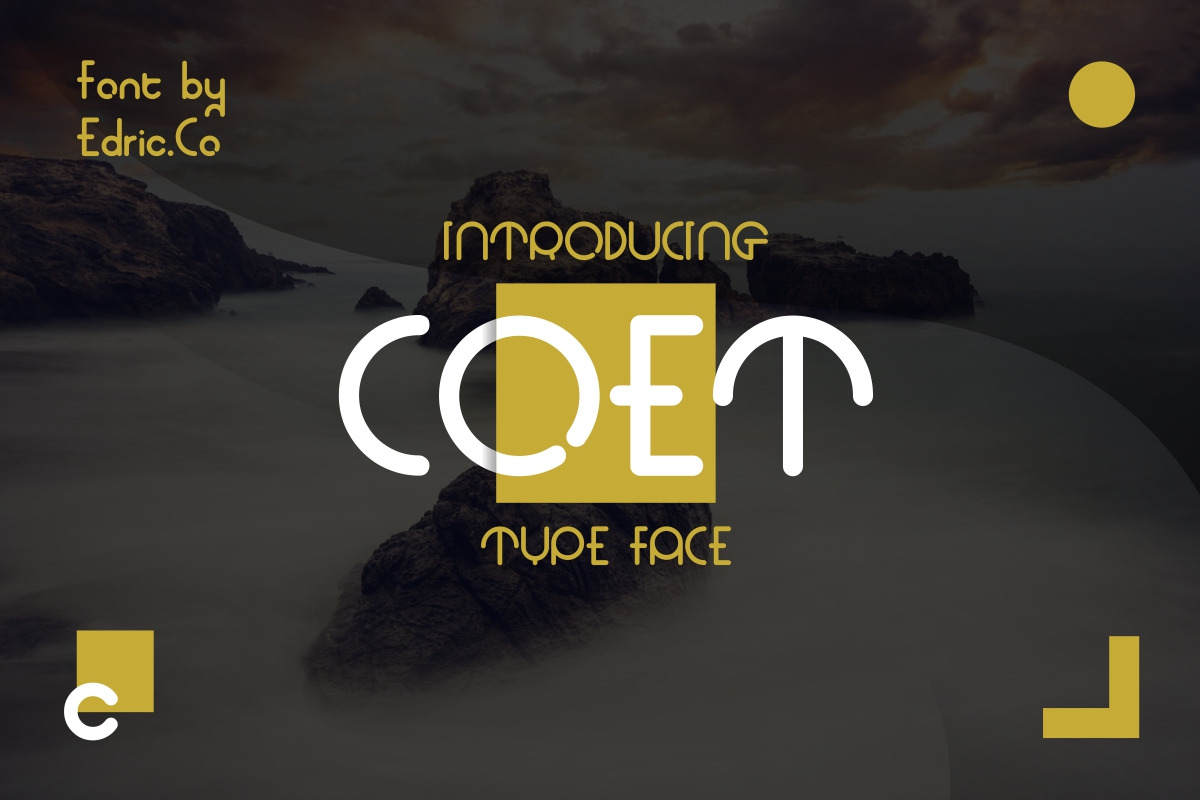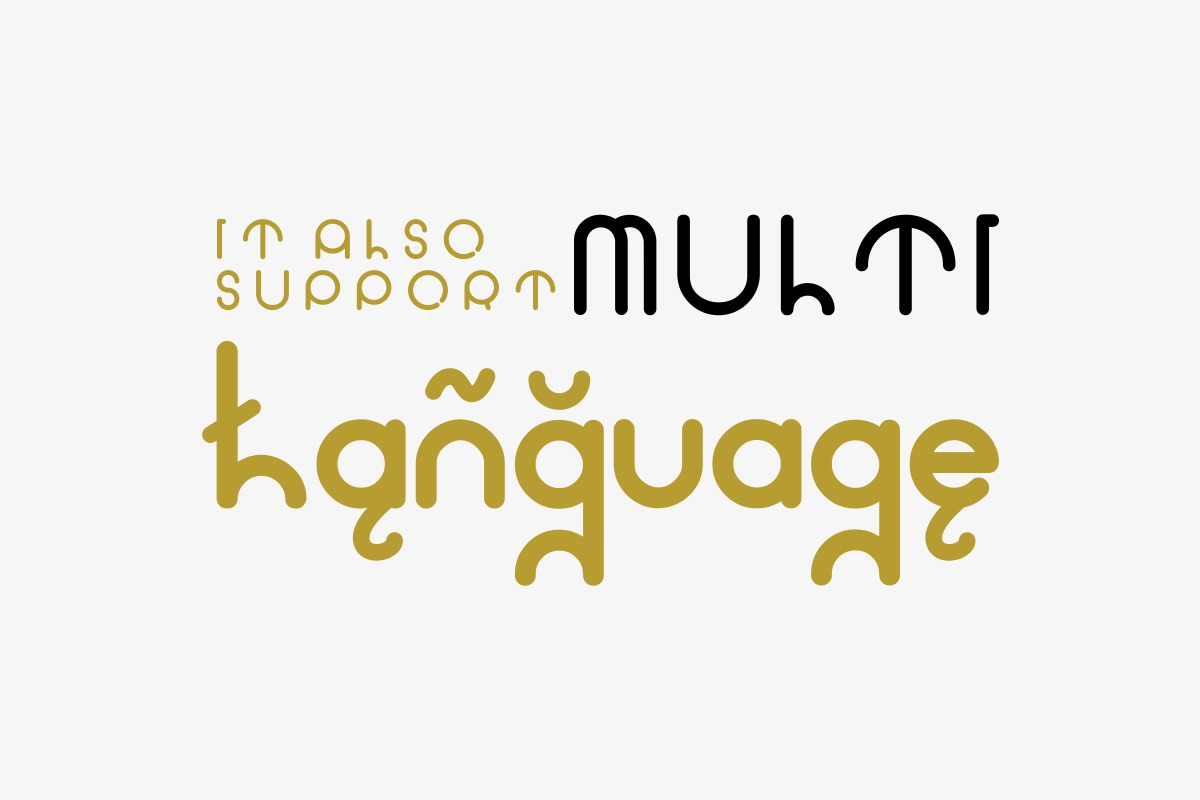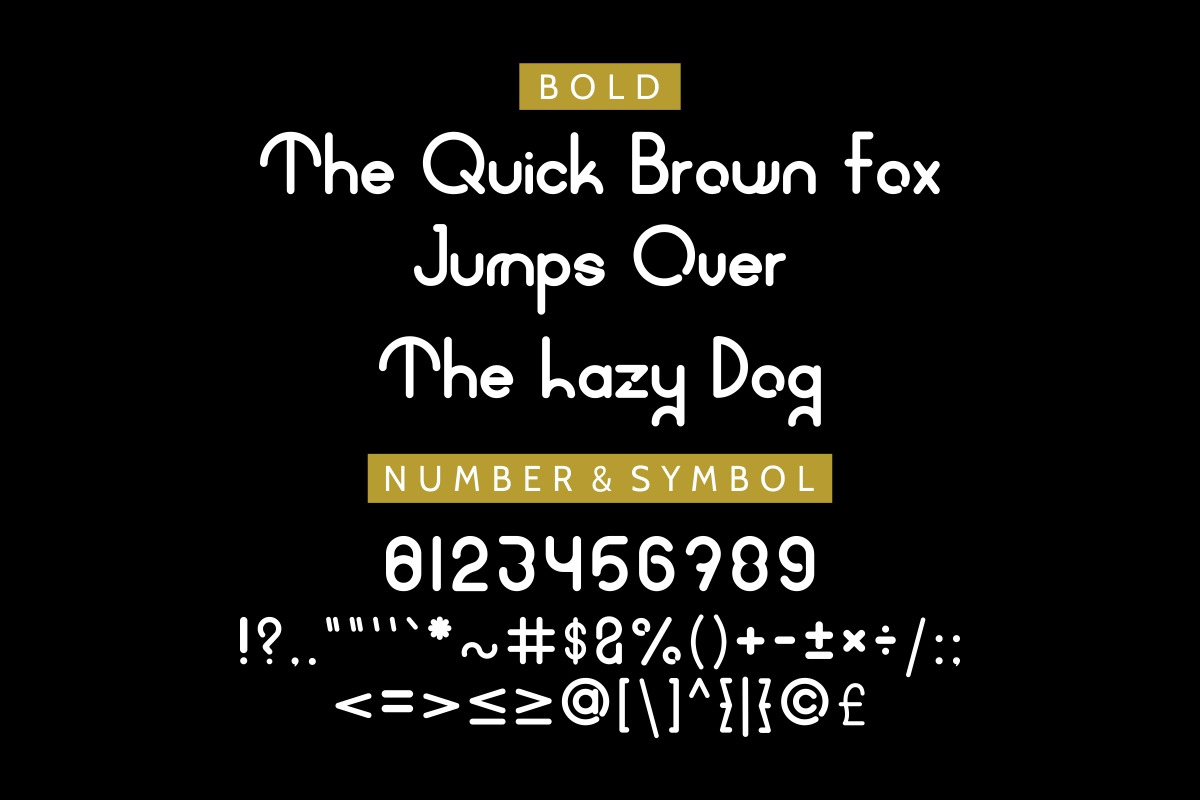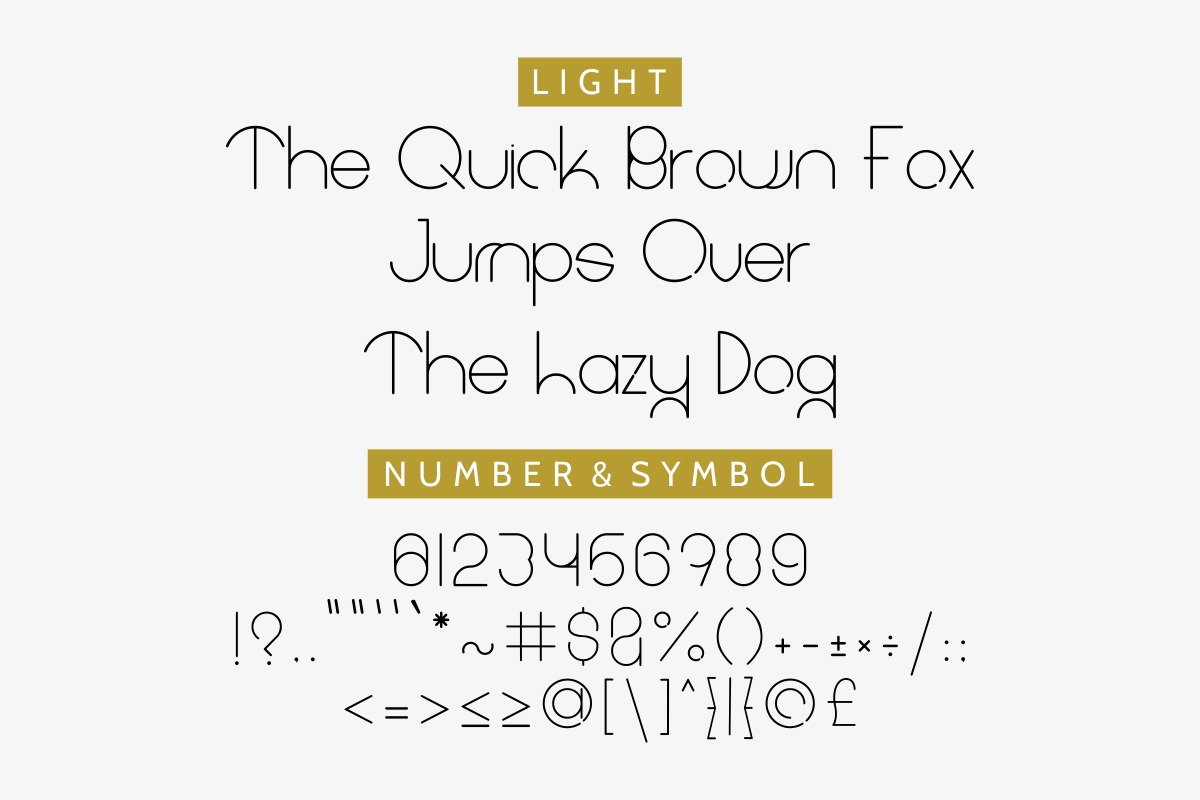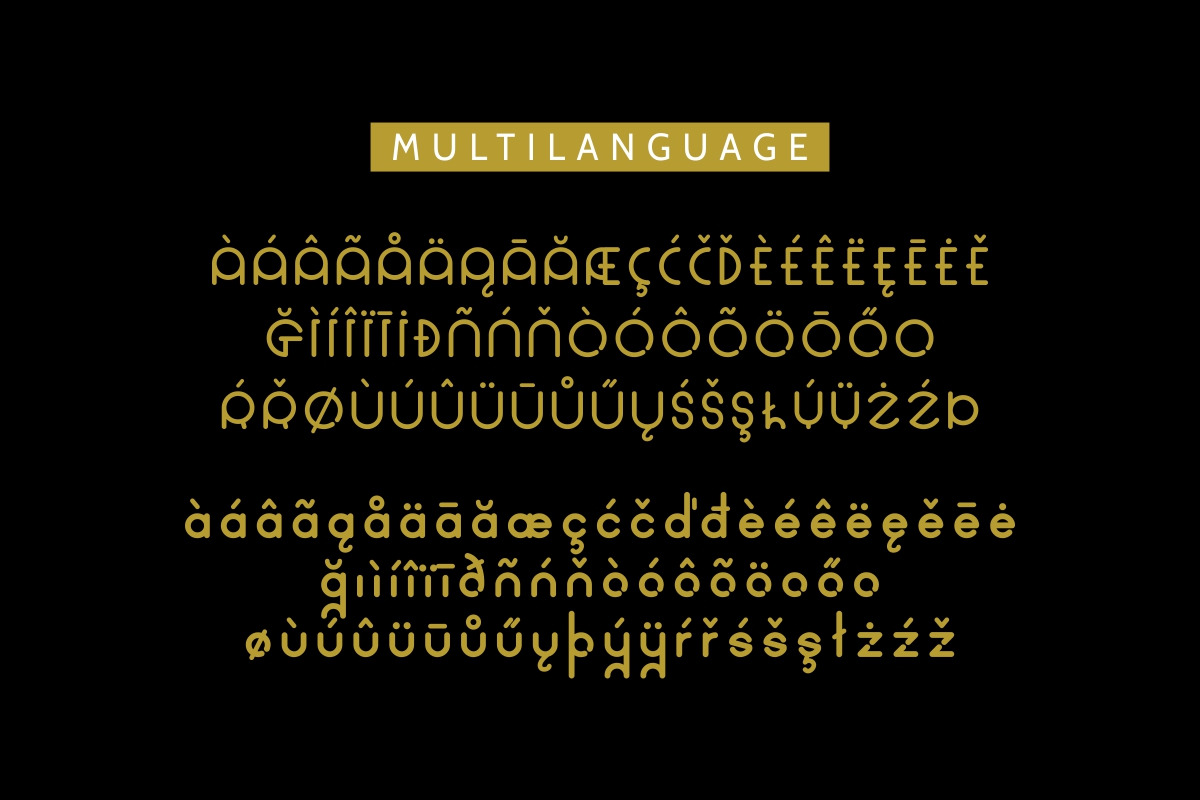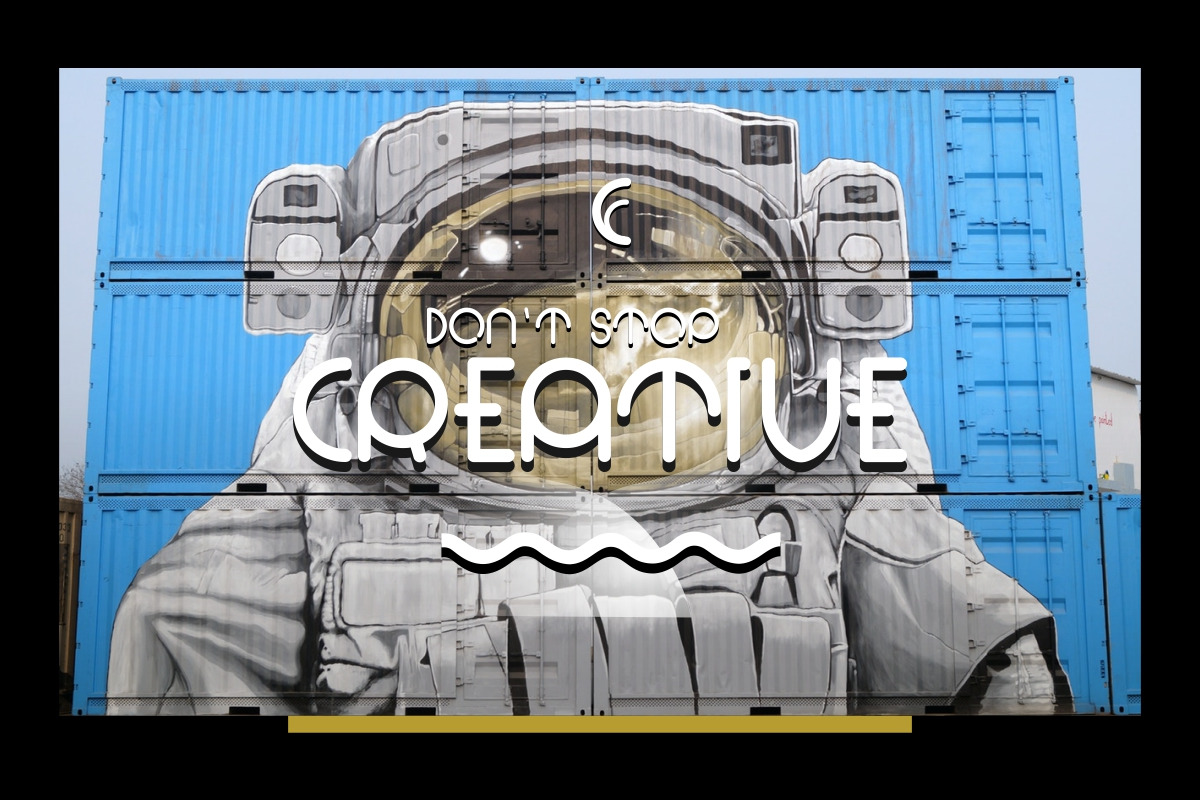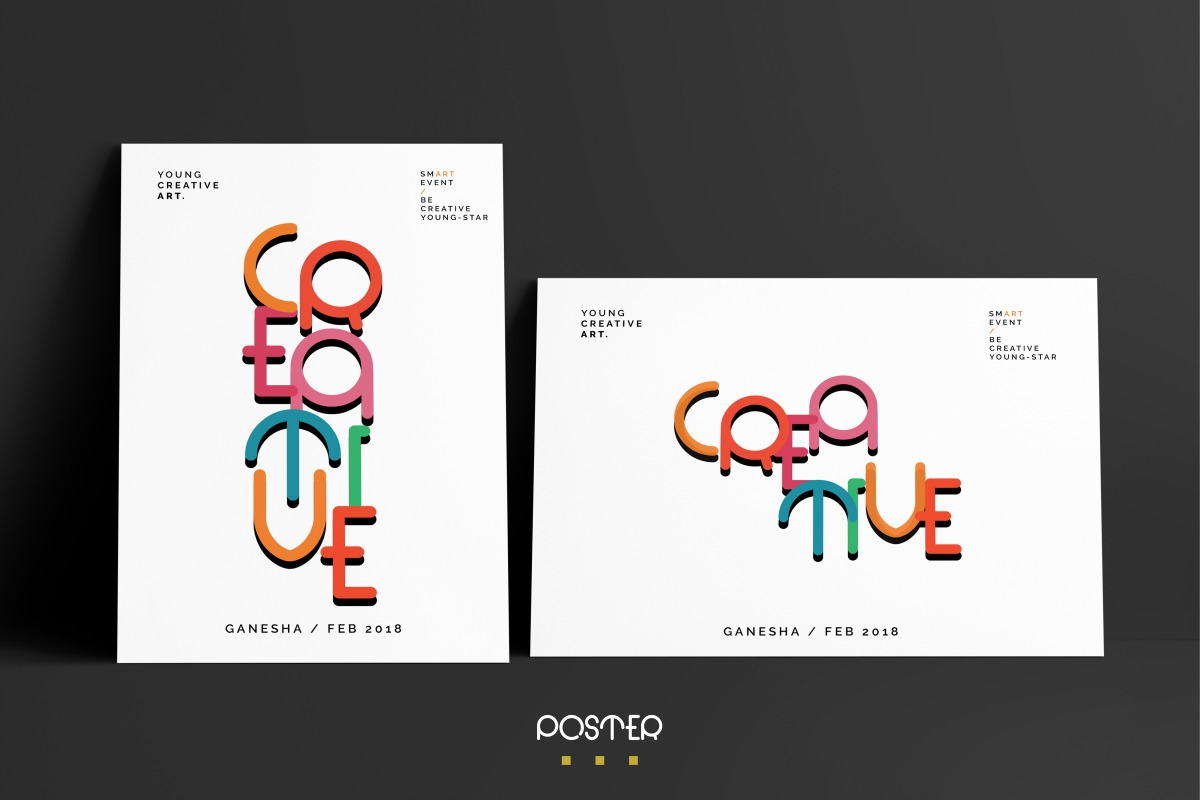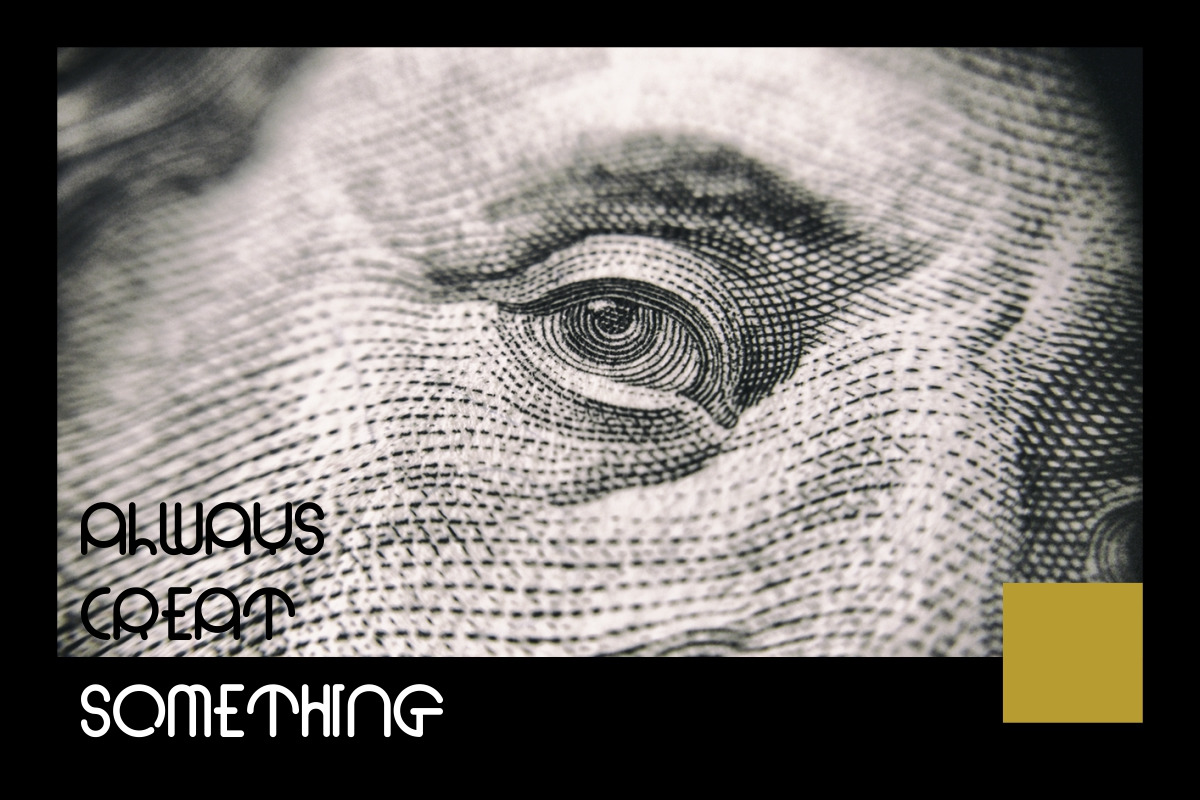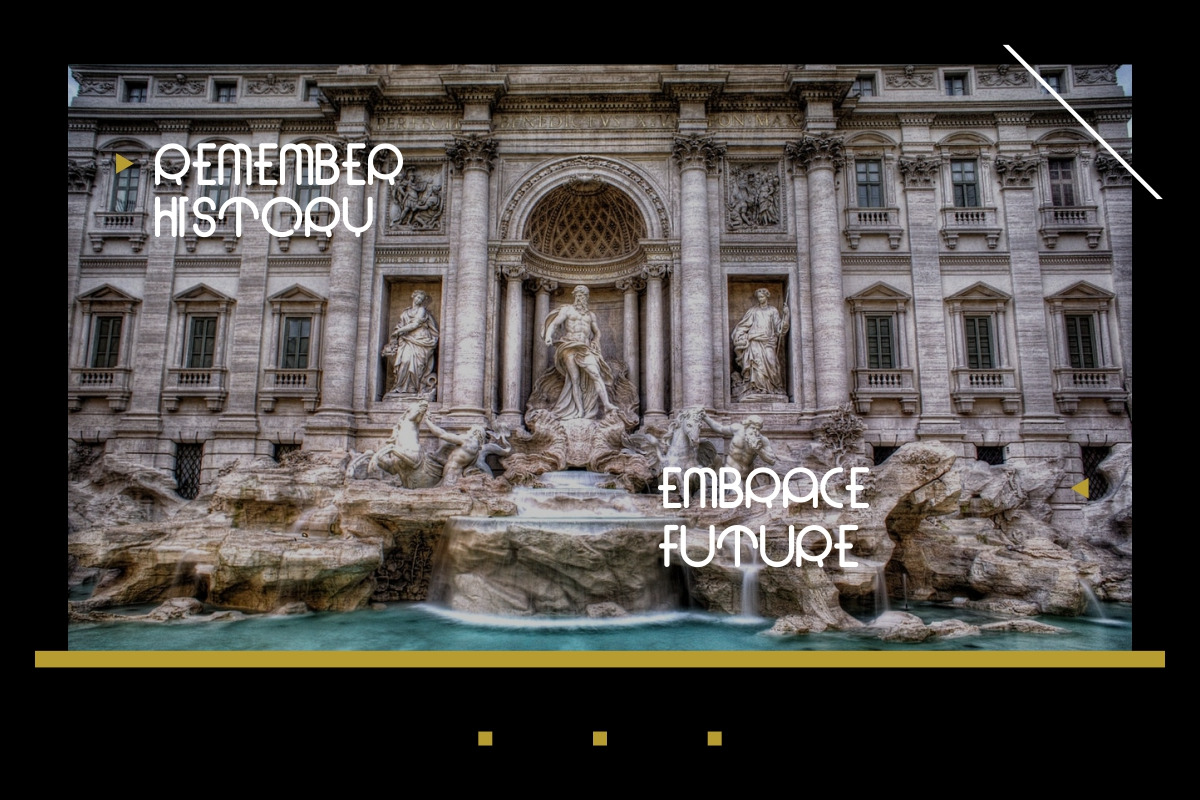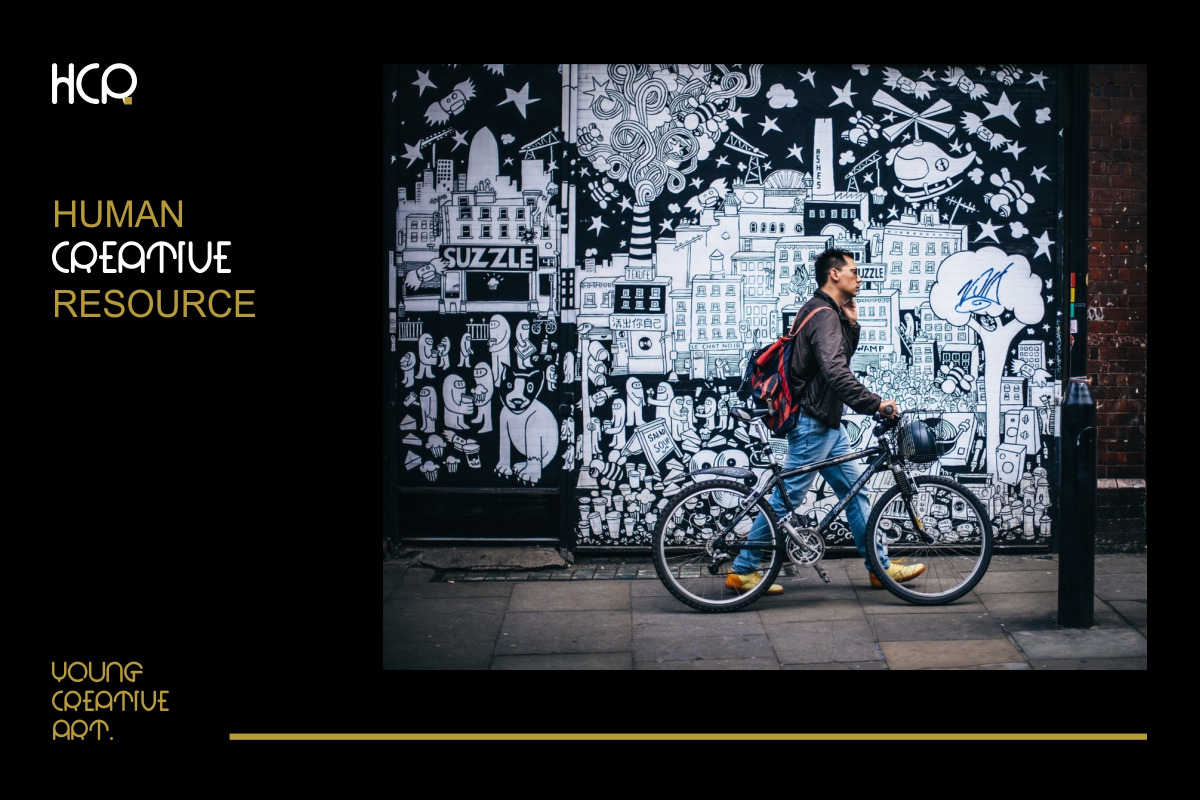
COET Sans Serif Font
Hi Everybody! This is our 8th Typeface here on EdricStudio. Introducing COET Family Font.
It’s a Unique Style Sans Serif. The main character of this typeface is elegant and style in many way. This font will be great for many things : print designs like : magazine, brochure, invitation, flyers or even price tags.